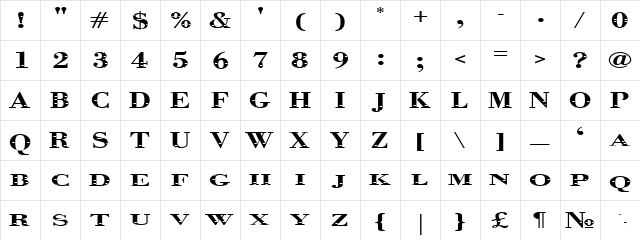
Graphis Heavy Font Preview
Graphis Heavy
Design Context for Graphis Typeface
Graphis takes a measured approach to typography — its balanced proportions and neutral character make it a reliable workhorse for both digital and print work.
Pro Tip: Use Graphis in both headline and body roles to test its range before committing to a single application.